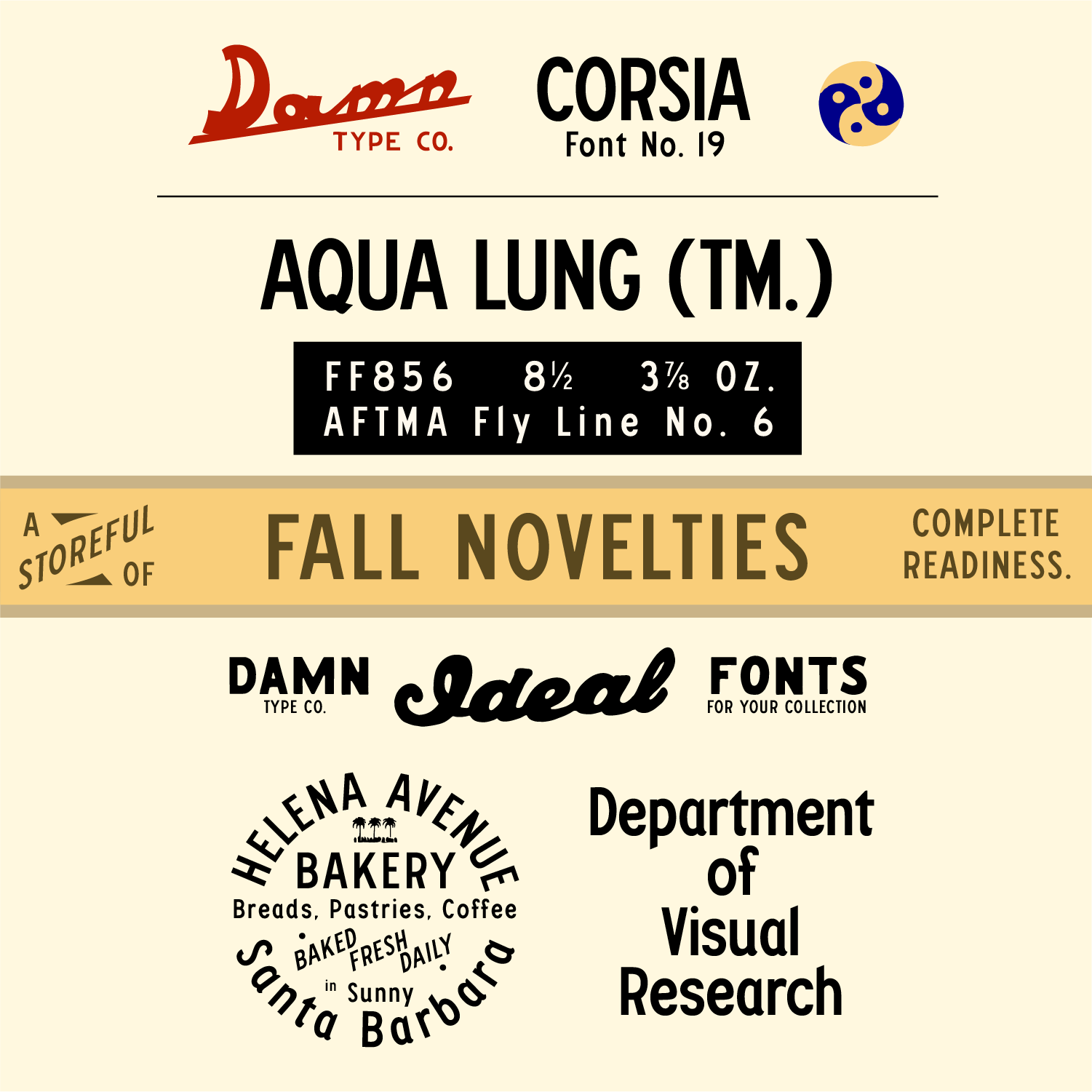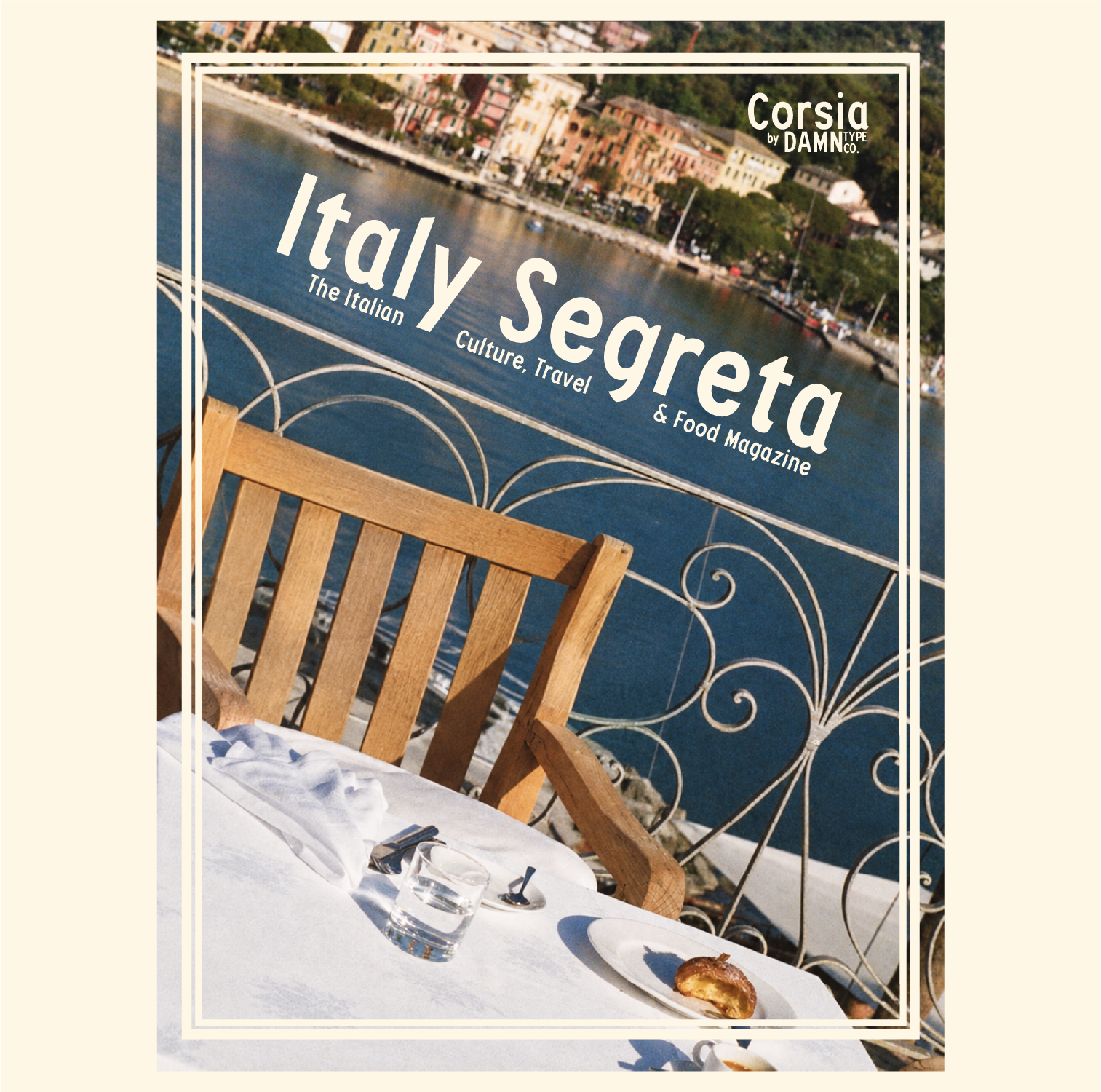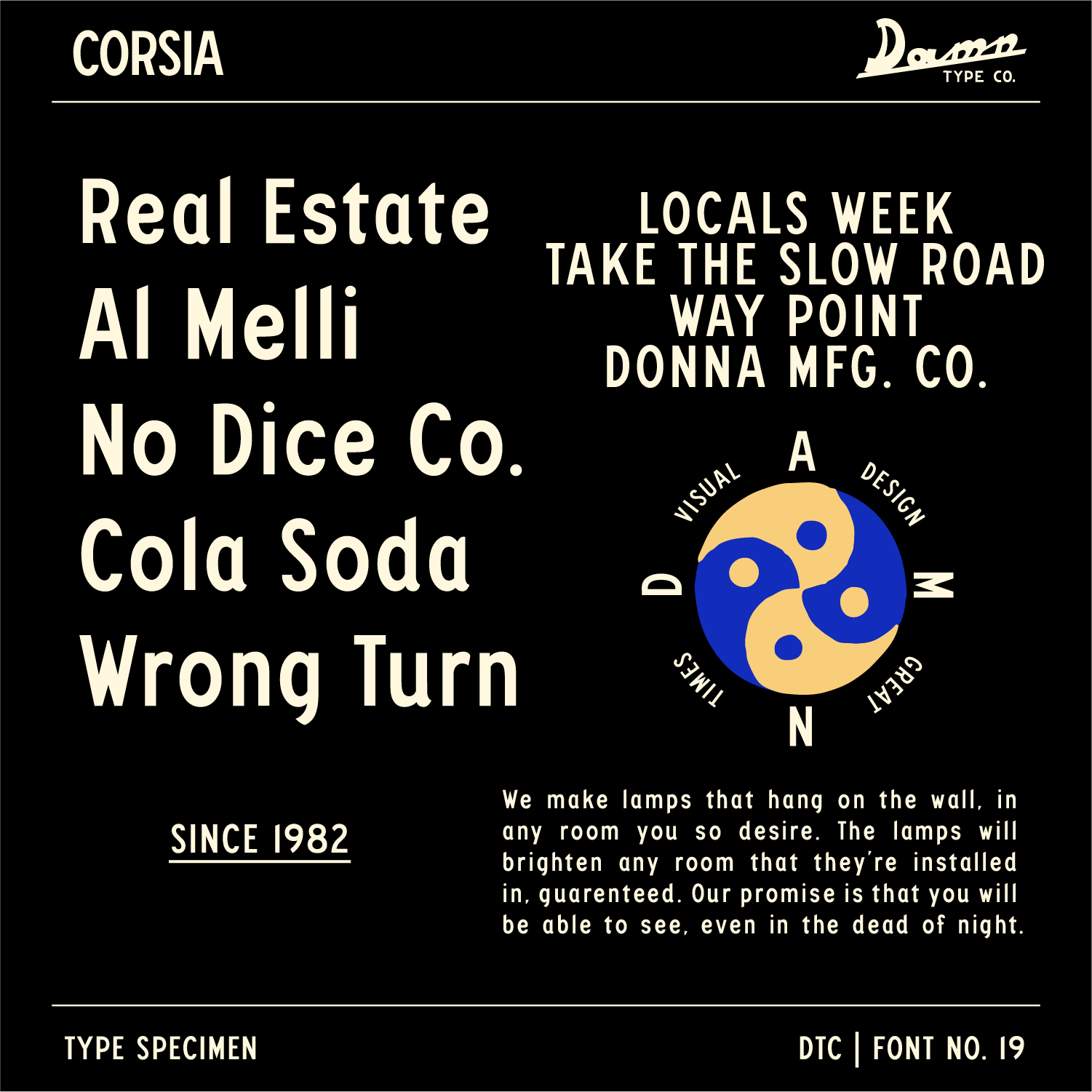
I started Corsia in 2022 while living in Italy on the toes of the Dolomites. It lands somewhere between the streets of Bolzano and the American highway. Inspired by the hand-painted street signs I walked for two years, Corsia combines their warmth and human irregularity with the utility and structure of classic American ‘Highway Gothic‘ road lettering. She’s built to be useful, but never too perfect.
Corsia means “lane” in Italian, which was a fitting name for a font shaped by two places, and the road between them.